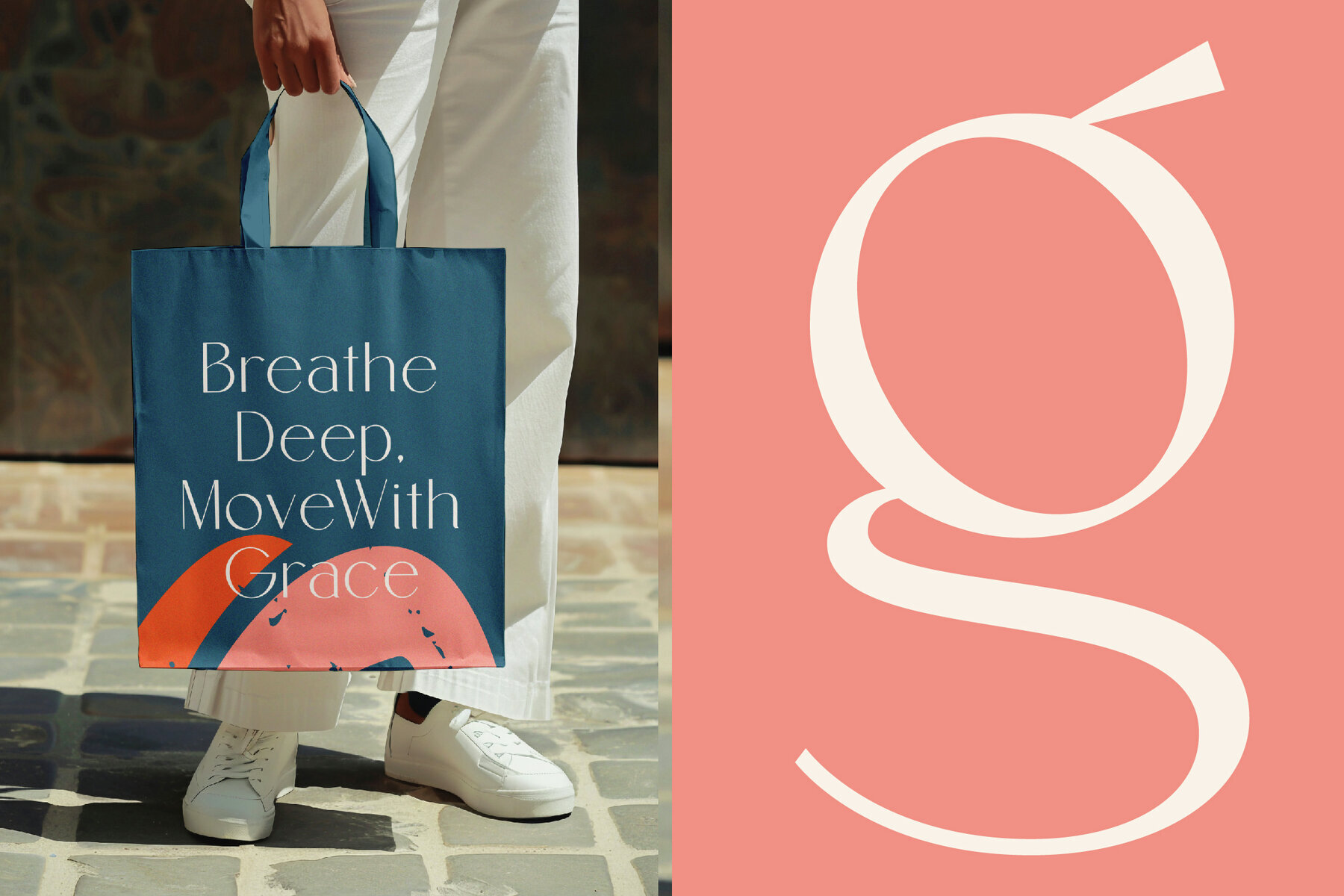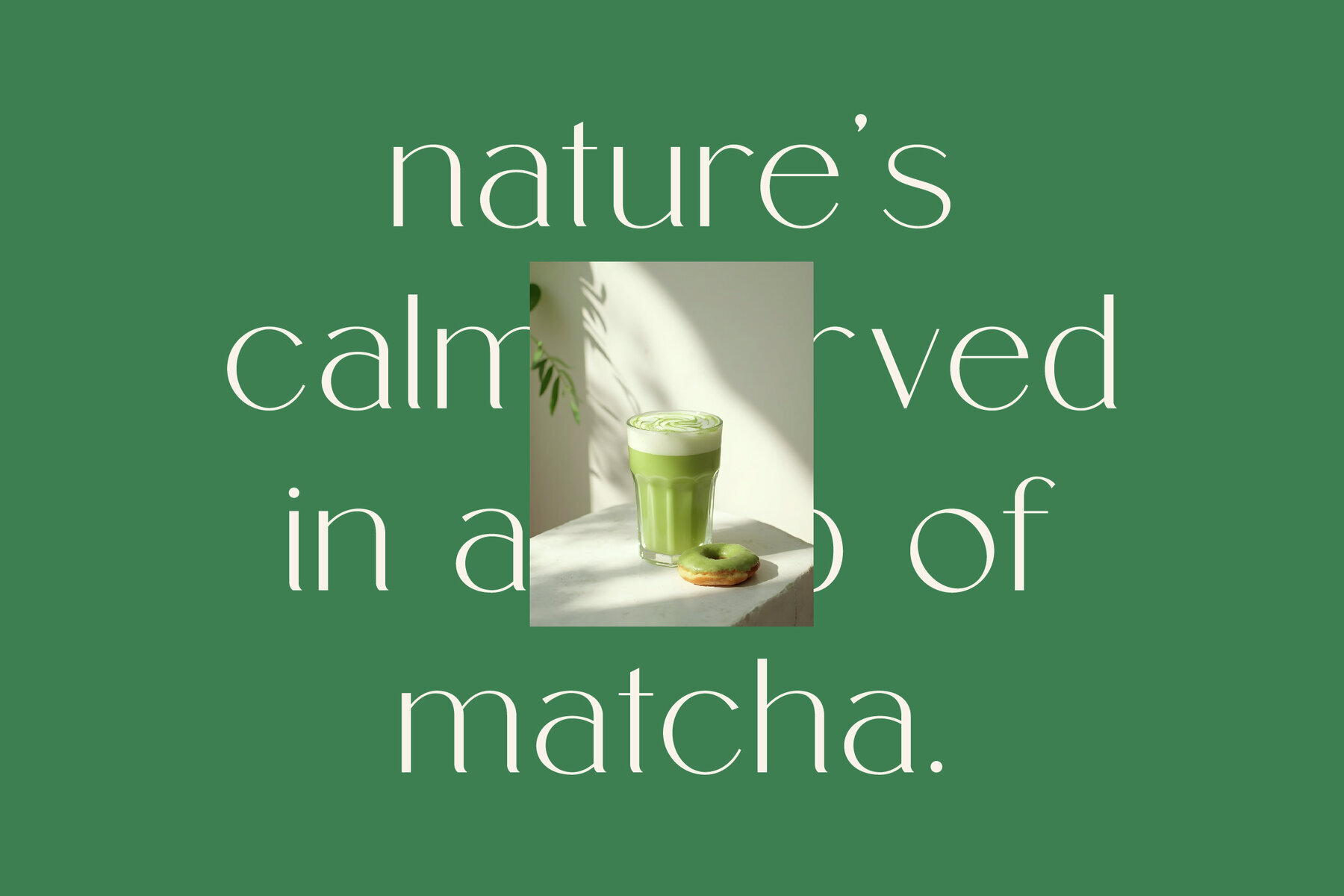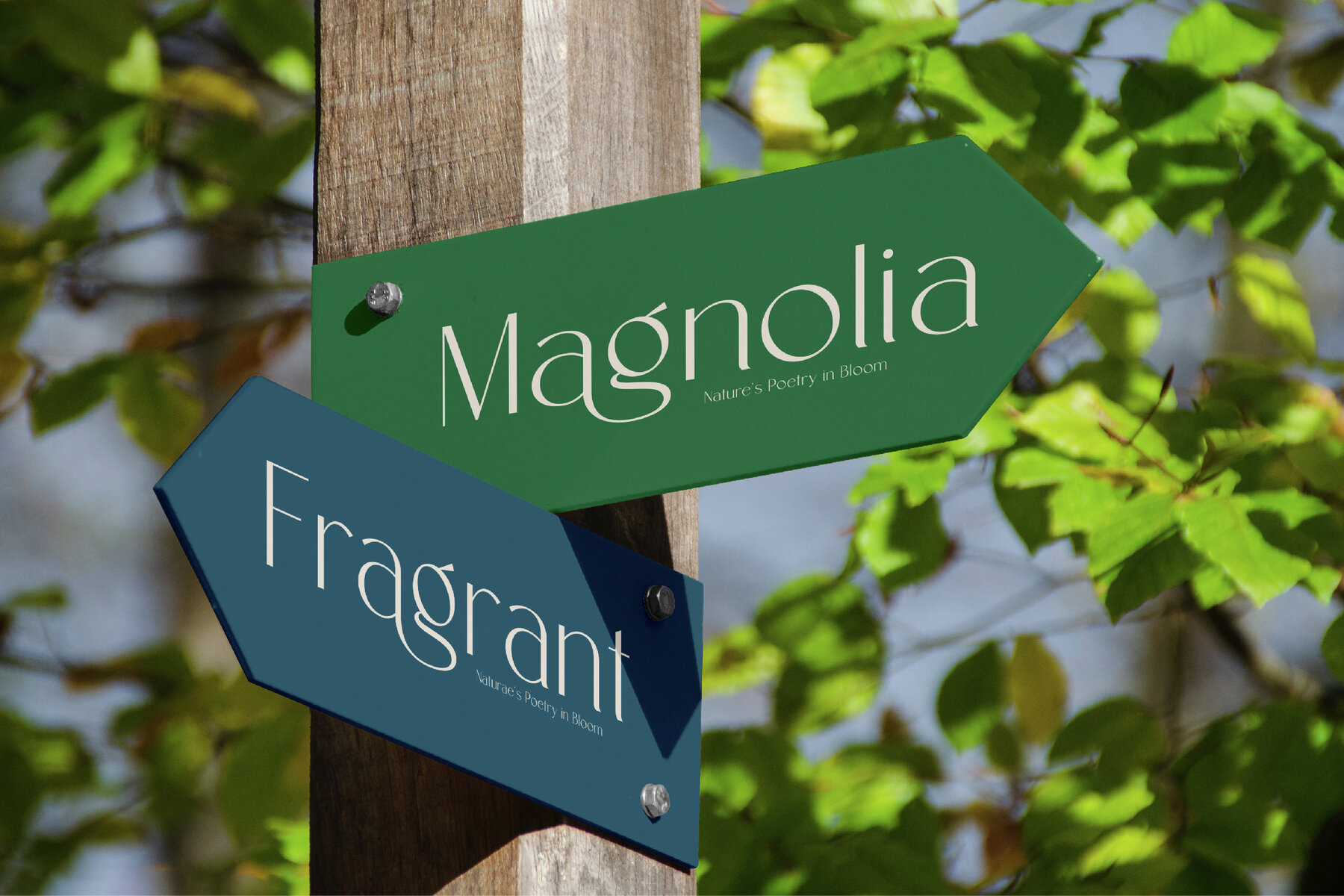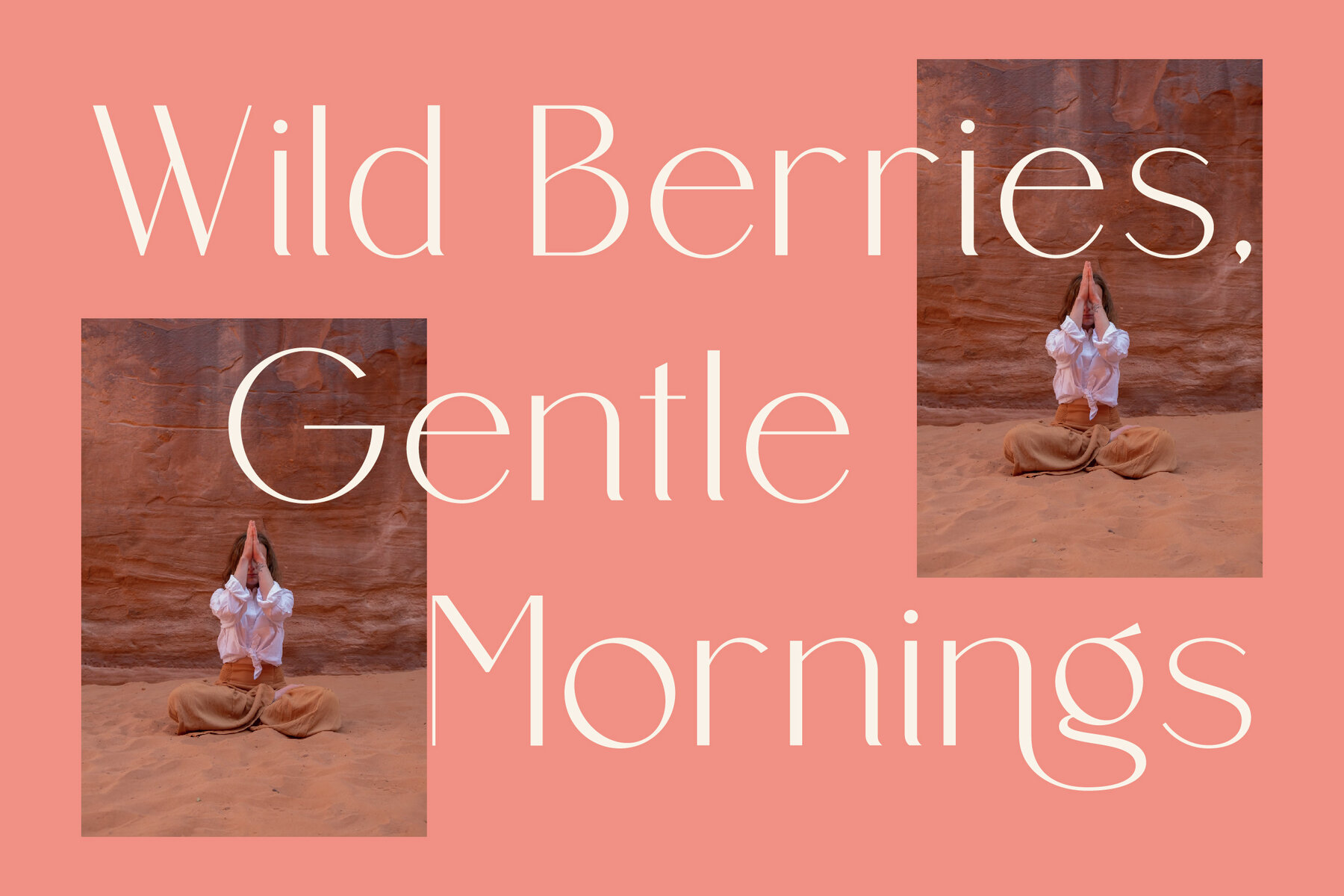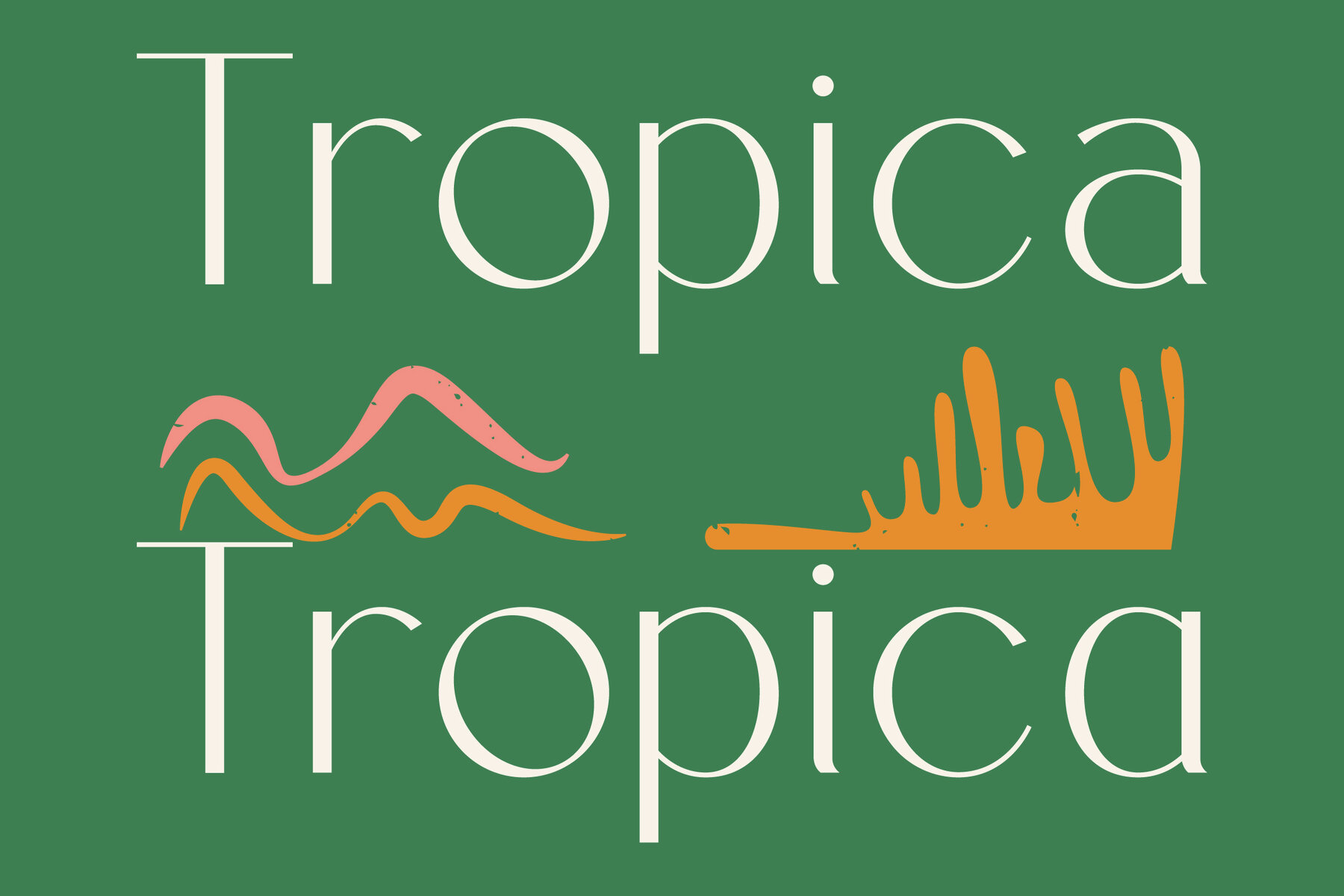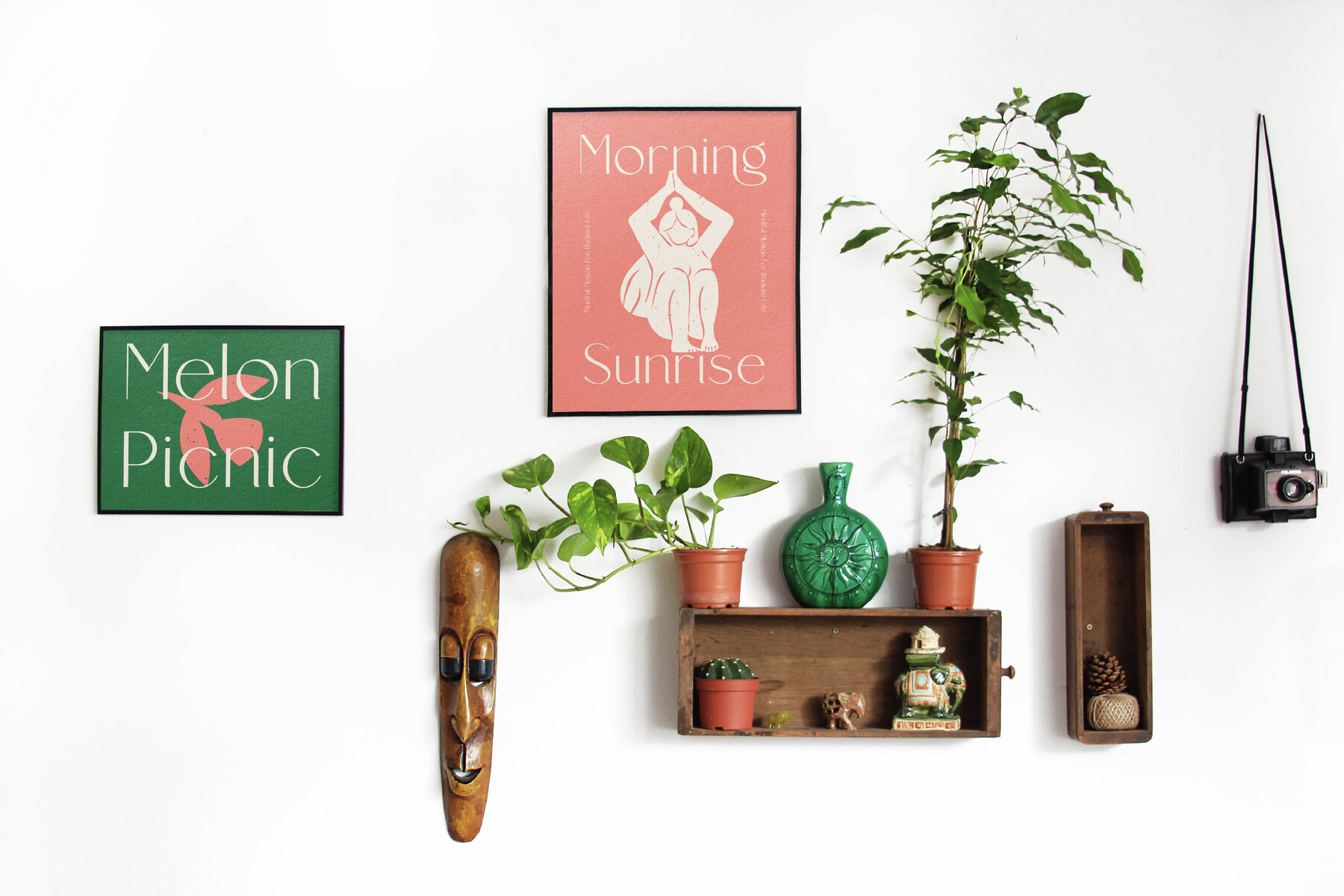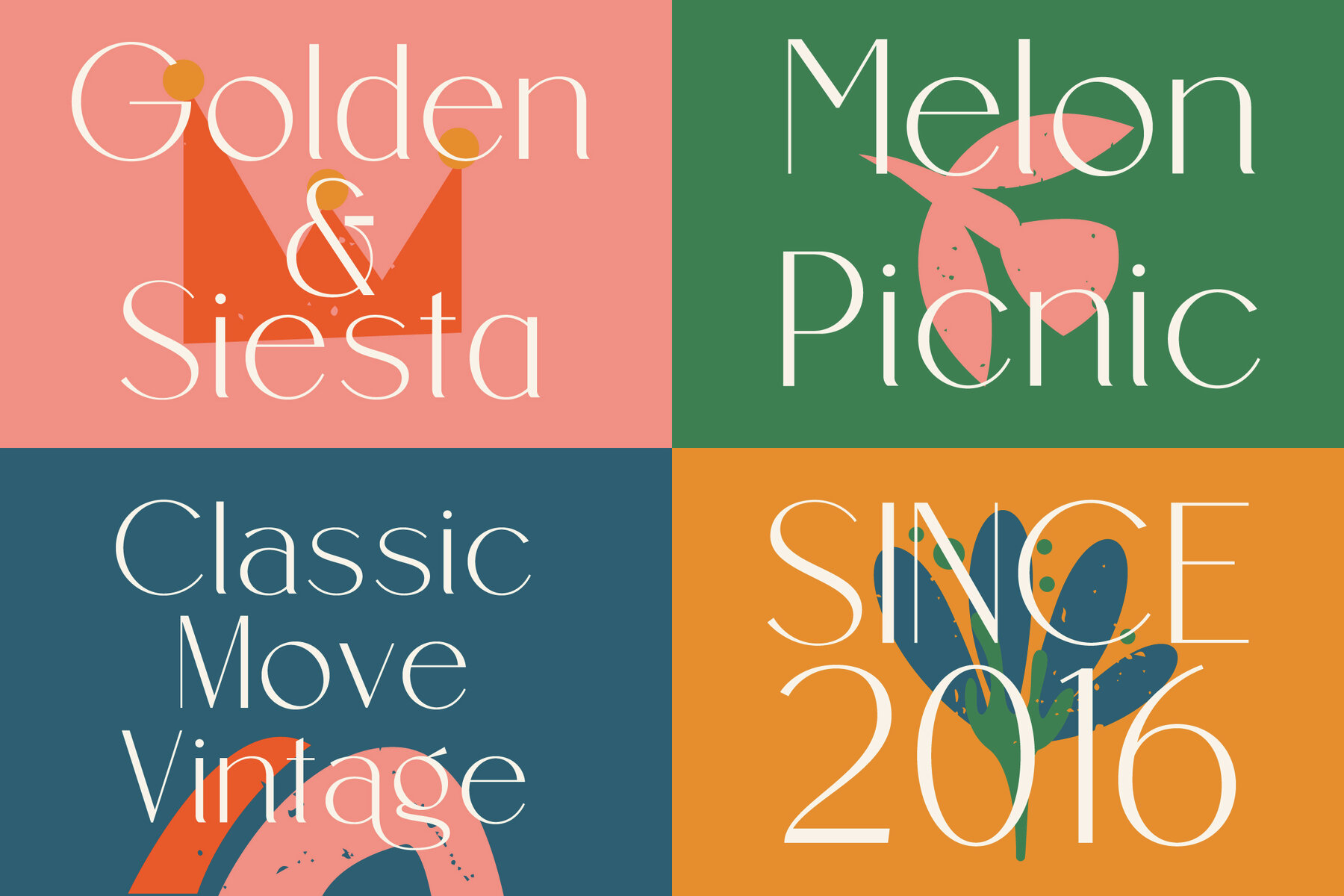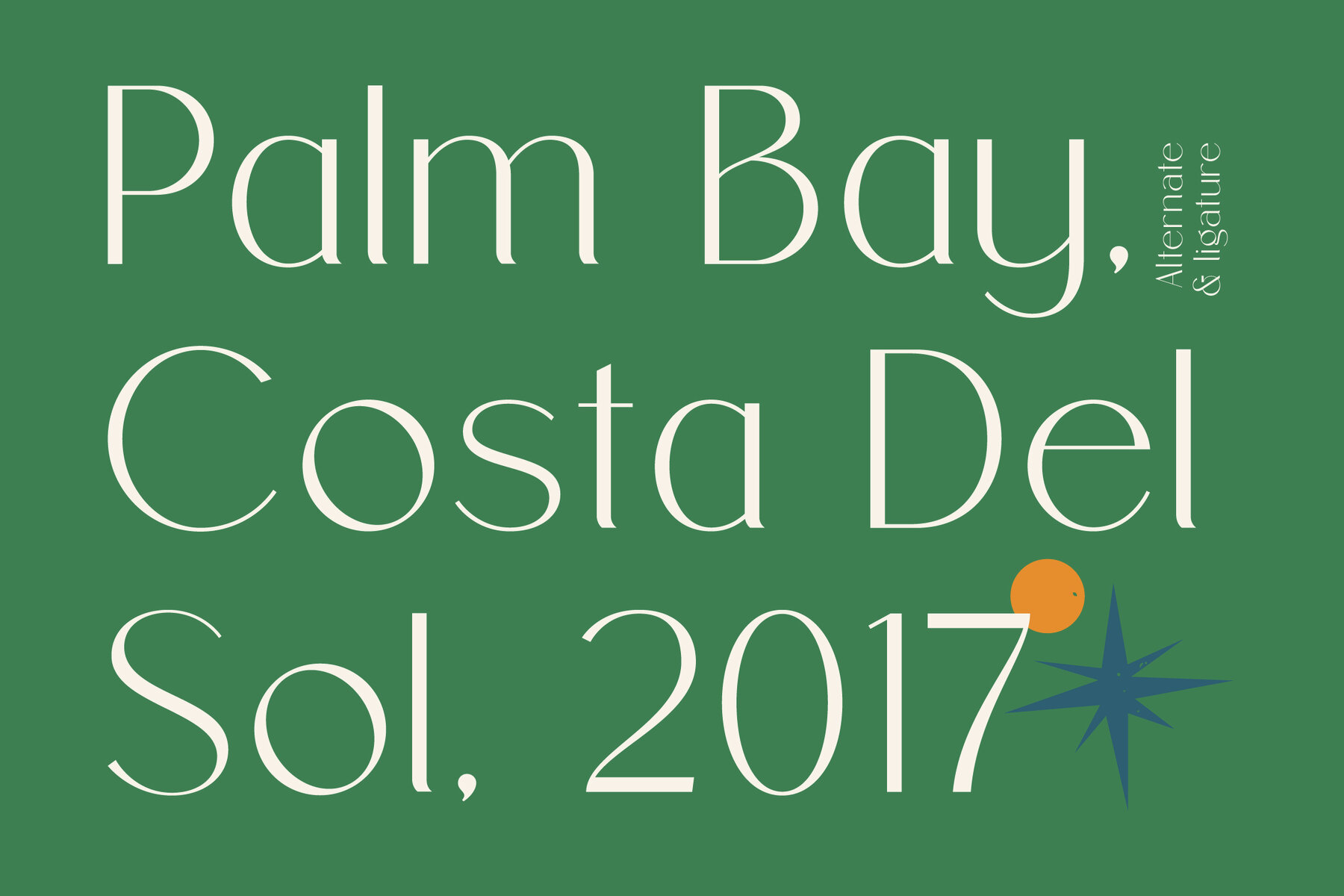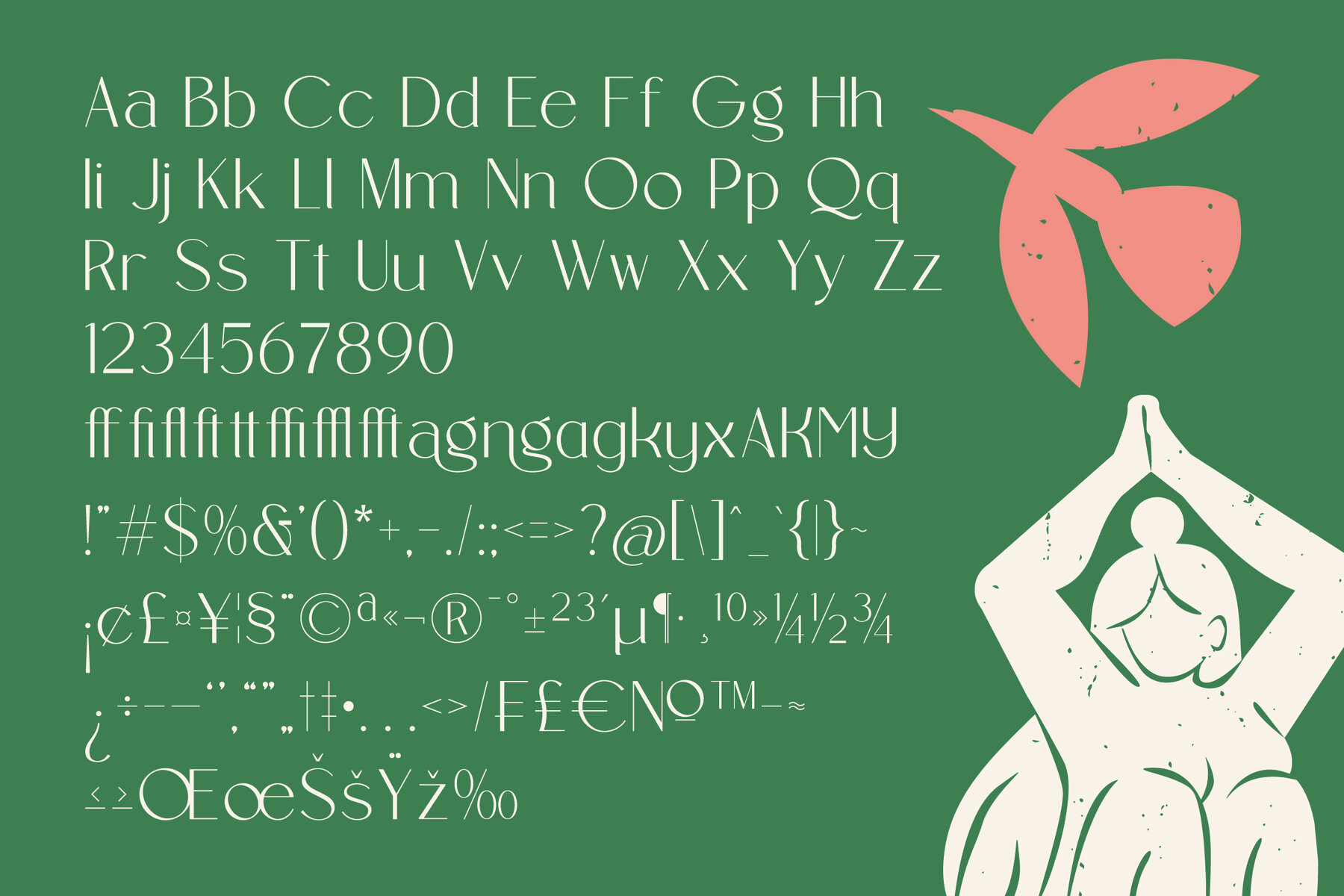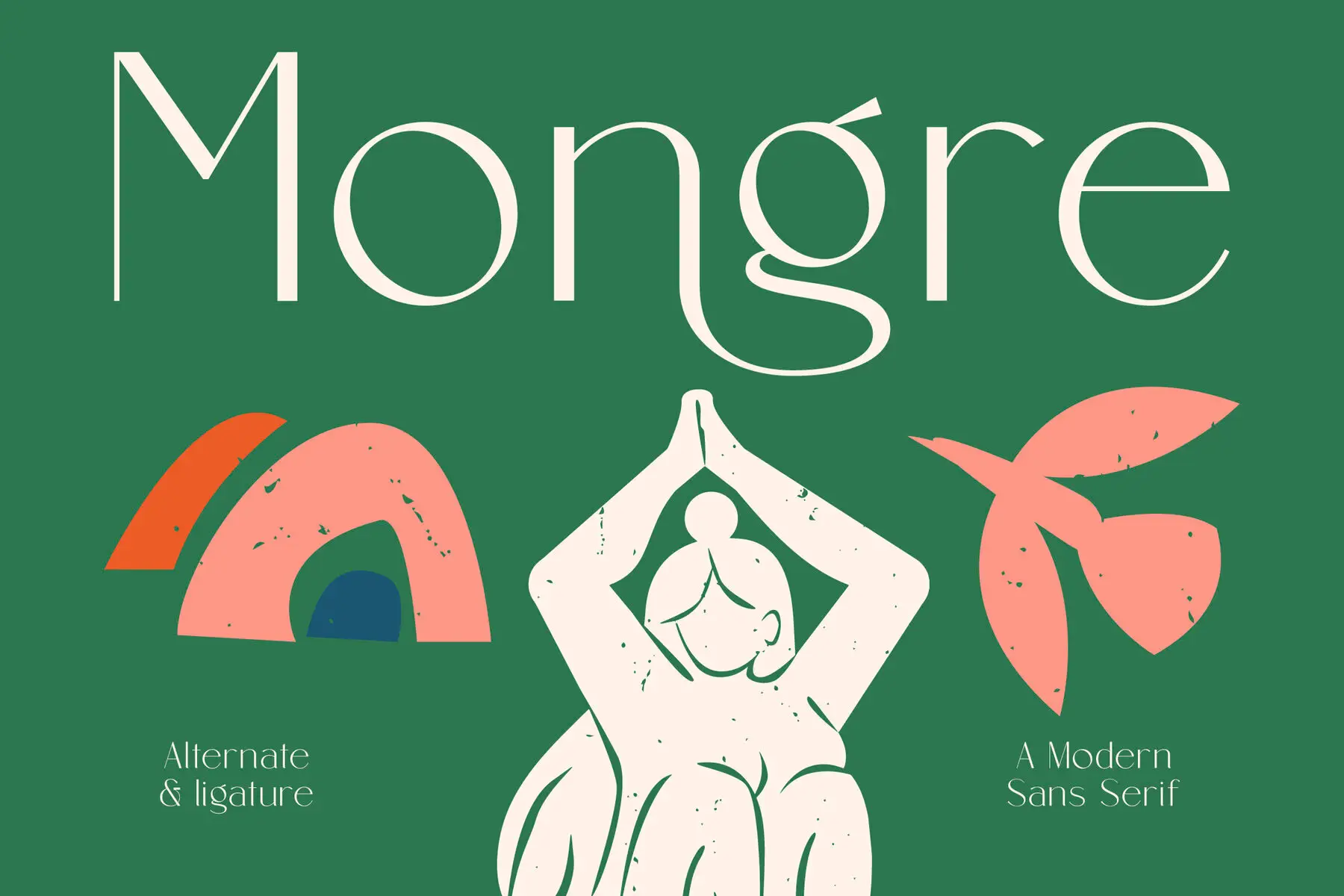
Mongre Font
Mongre – A Modern Sans Serif Font by Amorfatype Mongre is a clean and modern sans serif font that blends minimalist with bold visual clarity. Its sleek letterforms, consistent stroke widths, and contemporary design make Mongre an excellent choice for projects that demand both professionalism and personality. With a focus on simplicity and legibility, Mongre delivers a fresh and refined aesthetic ideal for modern branding and digital use. Crafted to perform seamlessly across a variety of applications, Mongre is perfect for everything from user interfaces and editorial layouts to logo design and advertising. Each character is thoughtfully shaped to maintain readability while adding a touch of modern sophistication. Mongre’s clean lines and versatile form bring a polished and confident voice to your typography. This Package Includes: